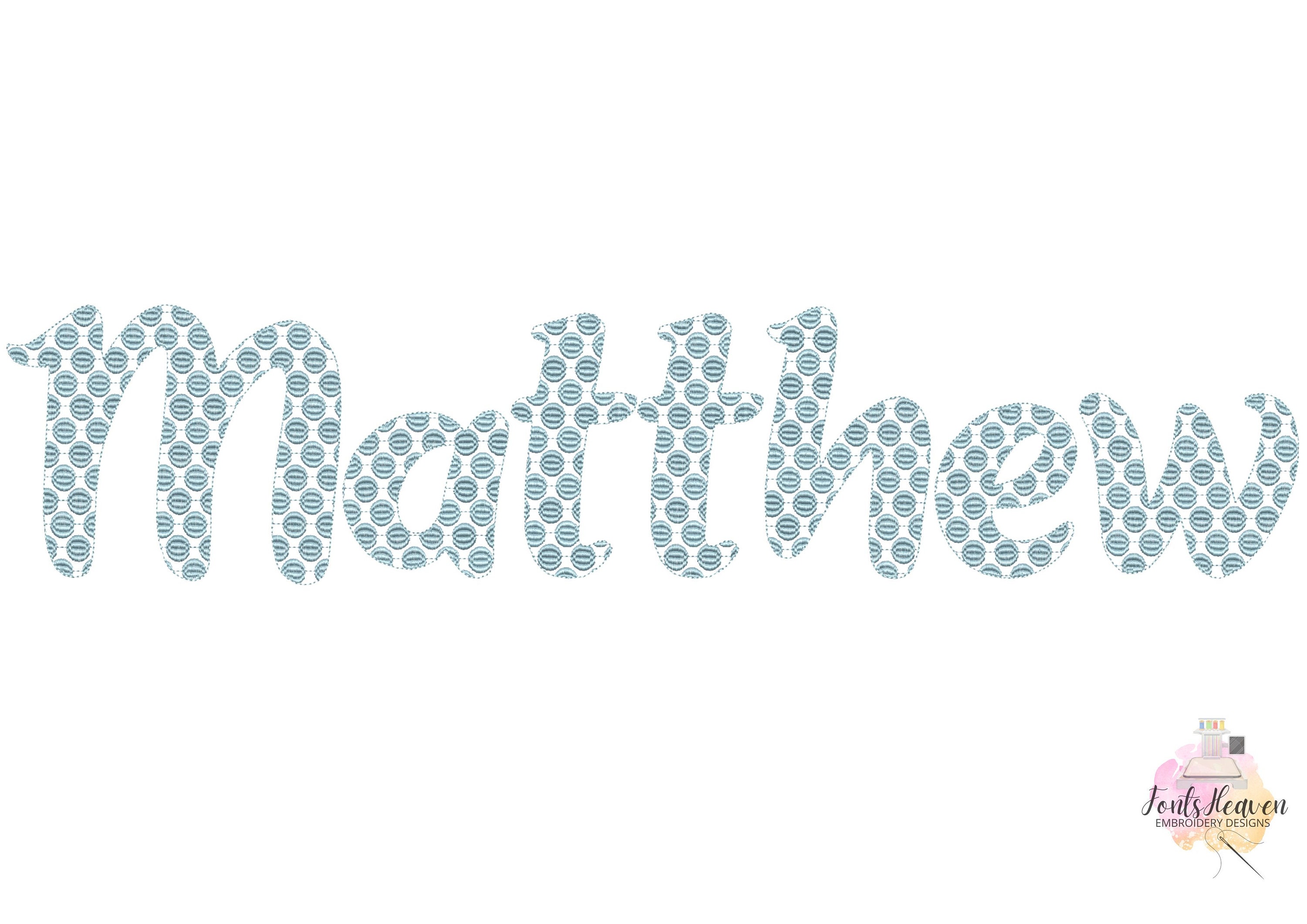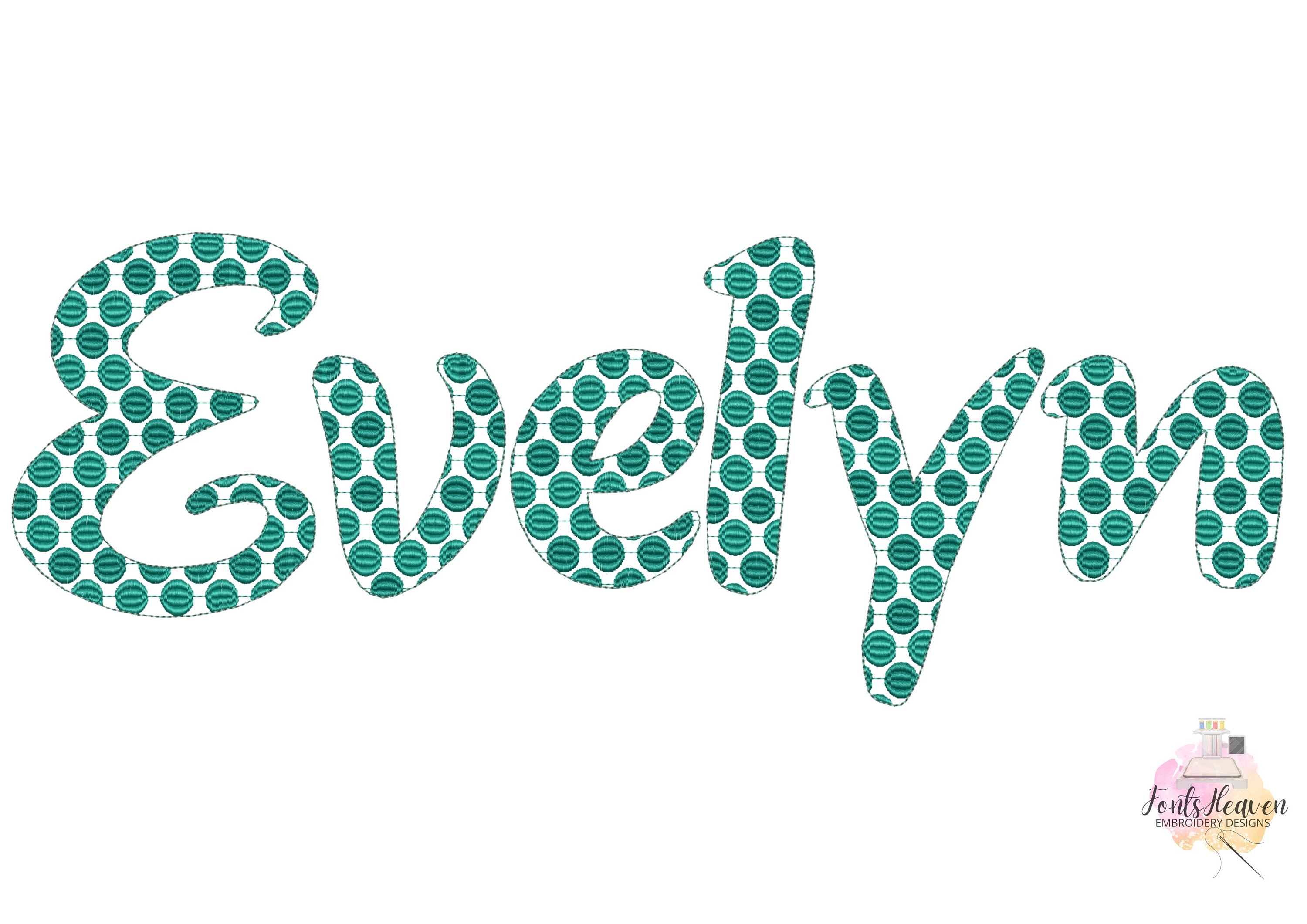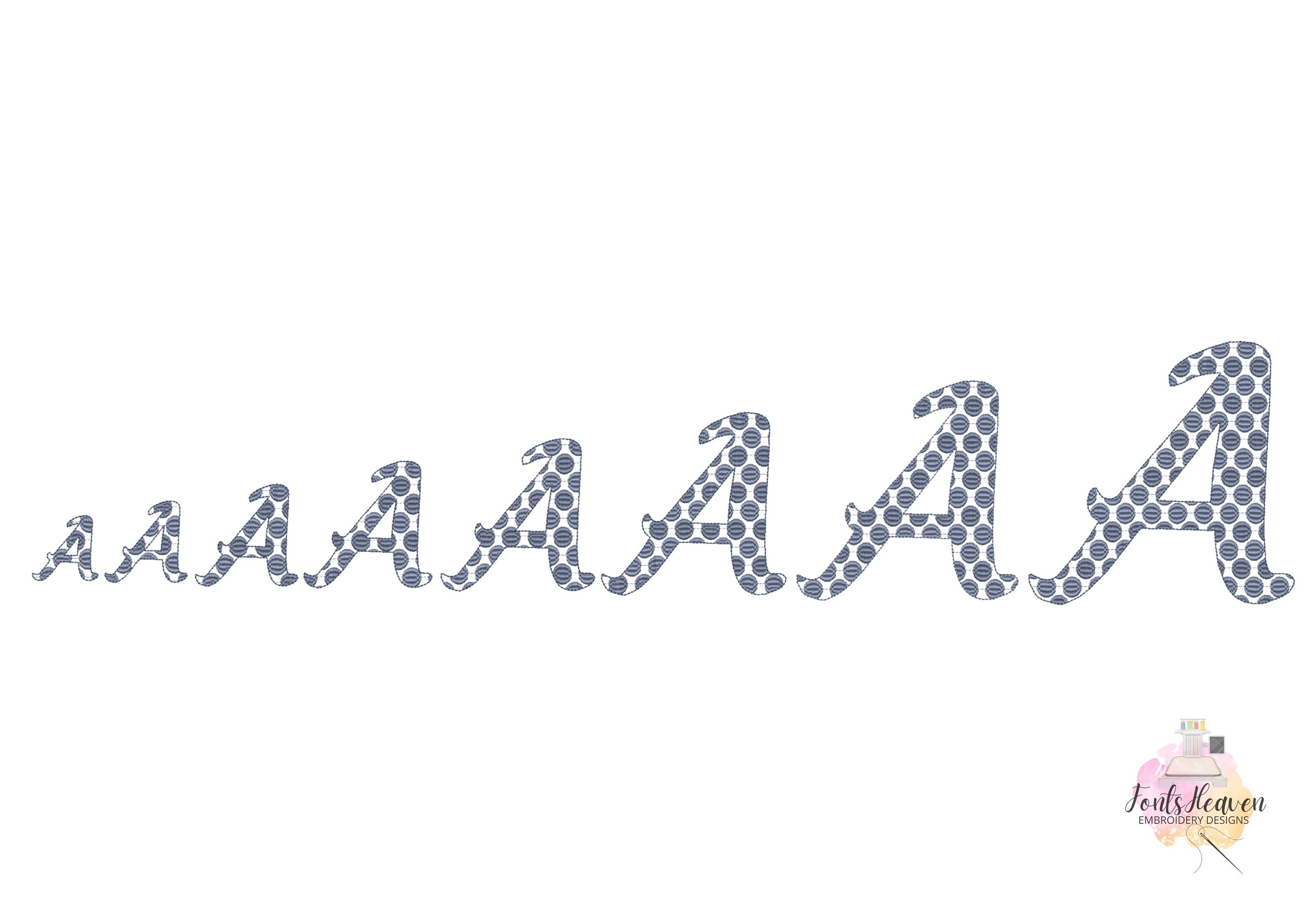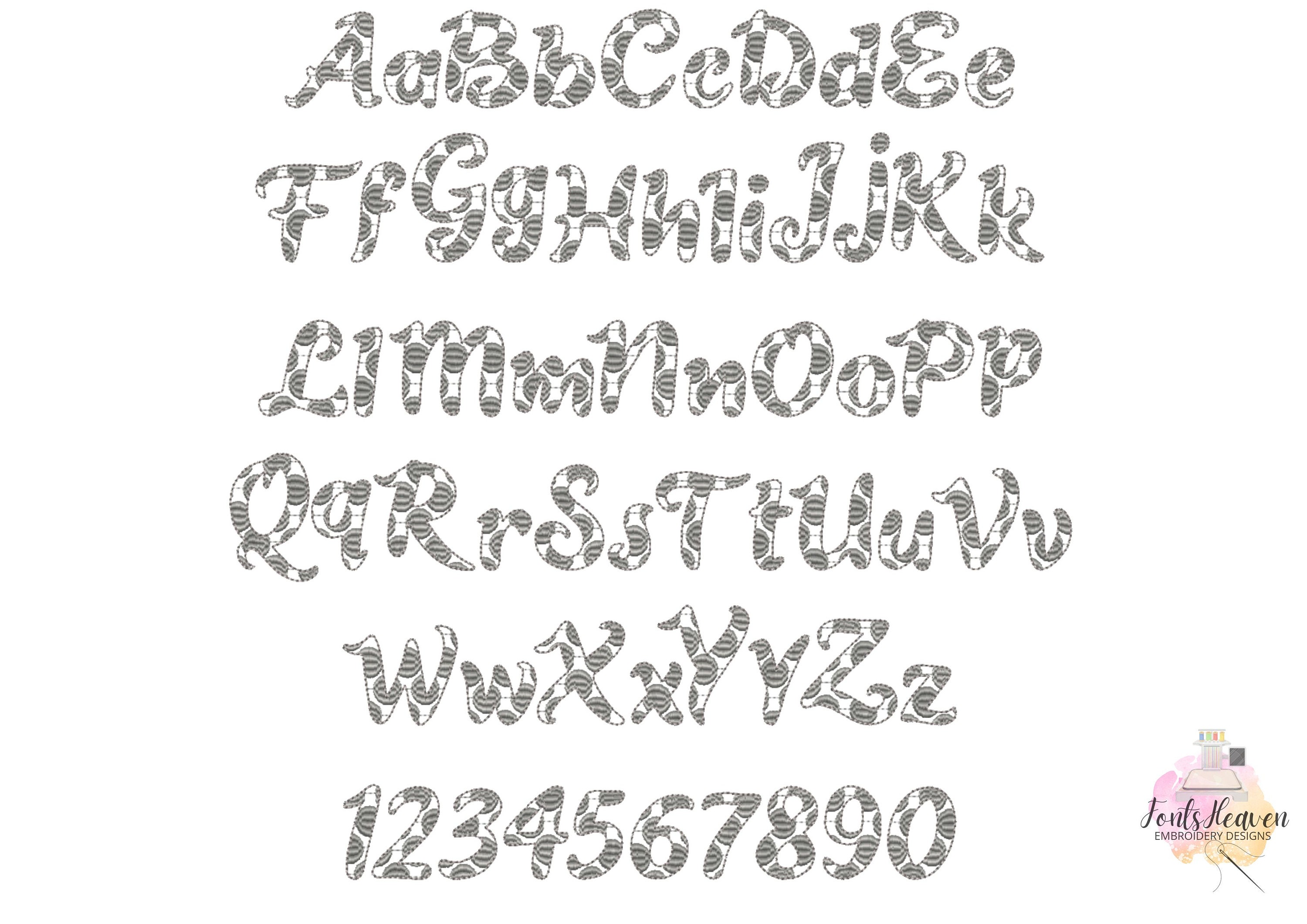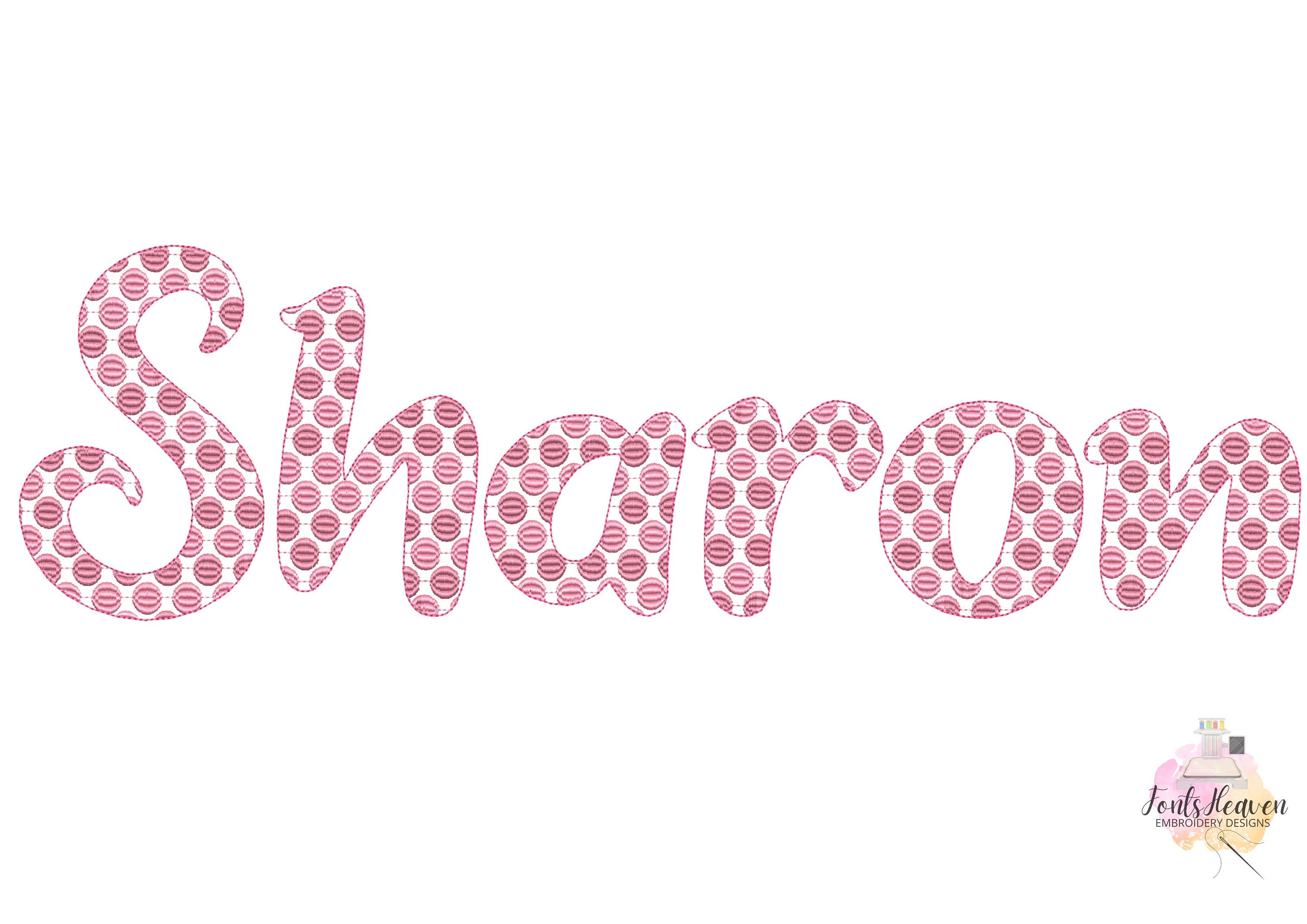
Polka dot patterned font machine embroidery designs alphabet sizes from 1.4 thru 5.8 awesome monogram letters
Uppercase and lowercase letters, numbers, punctuation